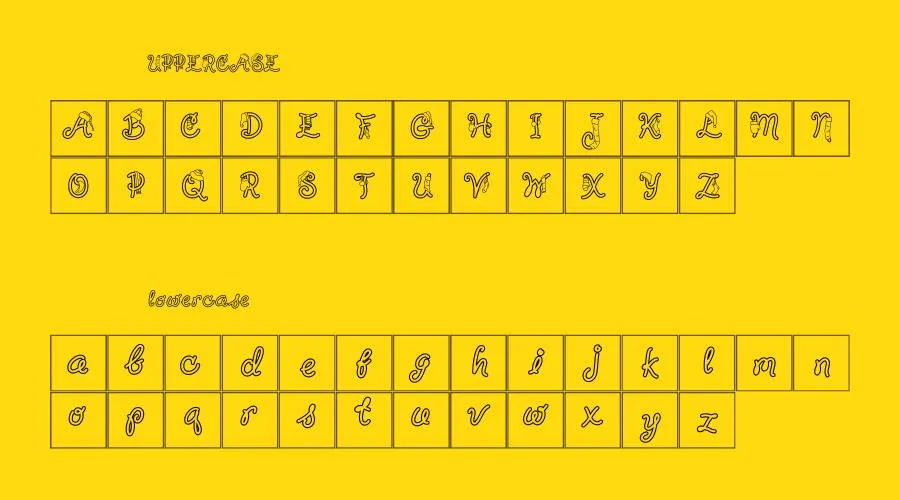
About LD Warm & Cozy Font
LD Warm & Cozy Font is an intuitively designed typeface created by an Unknown graphic designer. This typeface is a fancy typeface that is based on creating a comfortable and inviting atmosphere through its inviting curves and shapes. Its playful yet professional appearance helps to establish a friendly and calming atmosphere, perfect for making your work look polished and inviting.
The font's rounded characters give it an inviting aesthetic that draws attention and also communicates comfort to viewers. With its minimalistic approach, this font is easy to use in any setting whether for personal or professional use.
Overall, this typeface is a perfect choice if you want to make your work look inviting and look perfect with paired fonts like Oswald Font that go well will this typeface to use in your designing project. And you can easily use this typeface in any of your designing platforms.